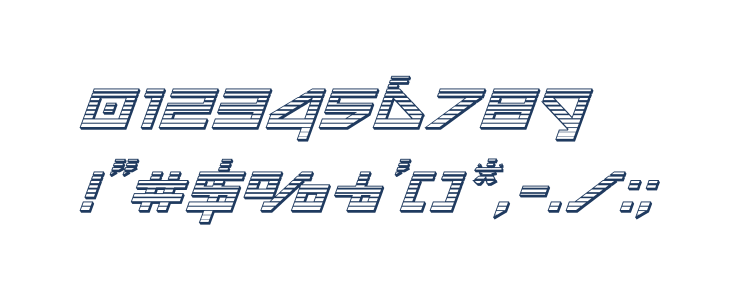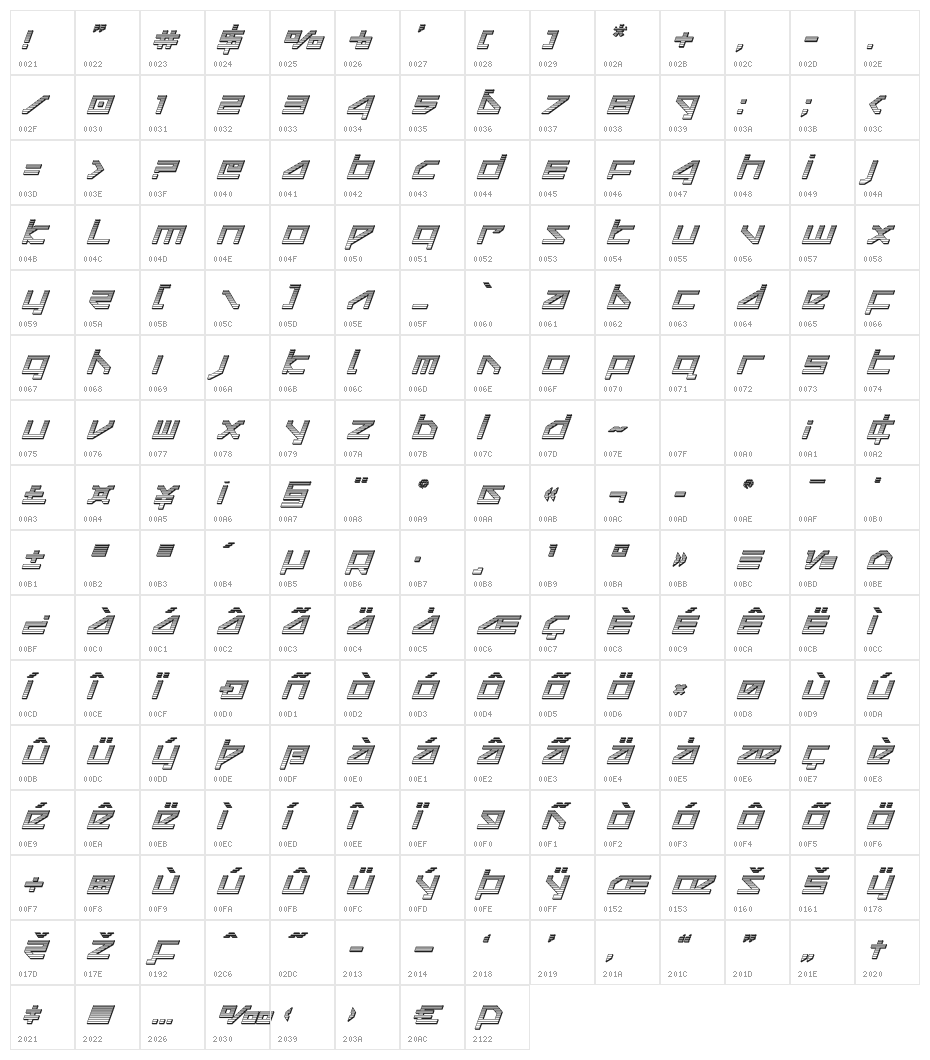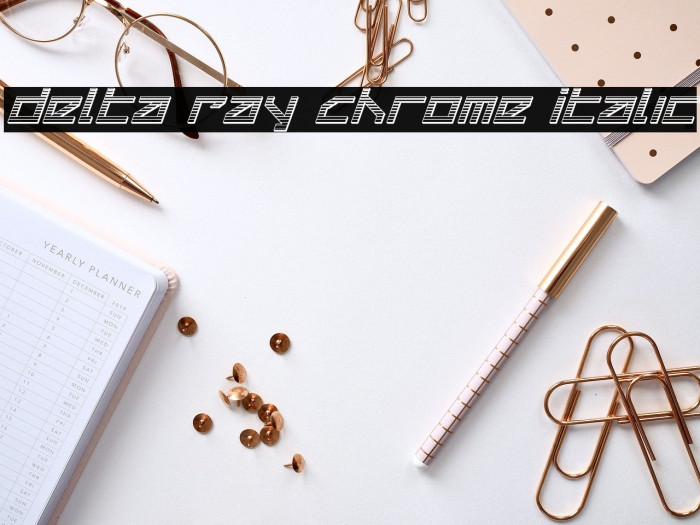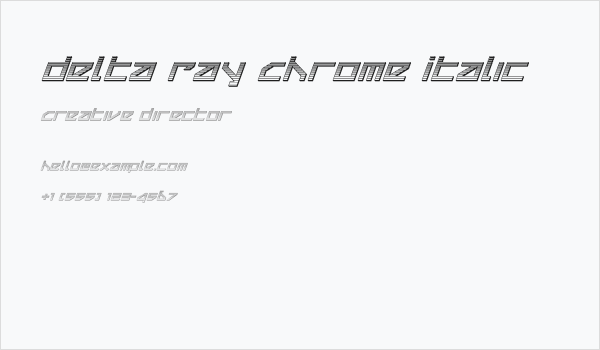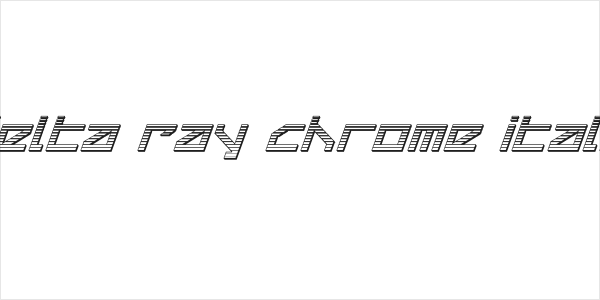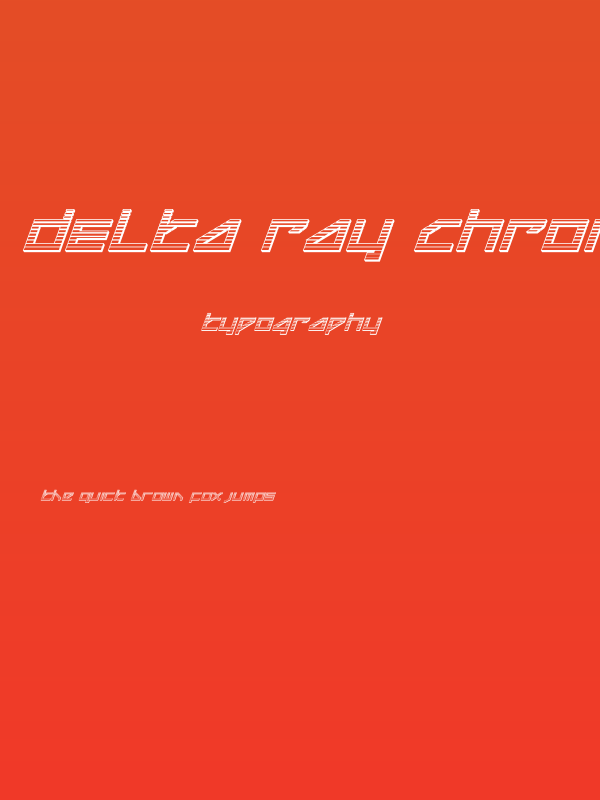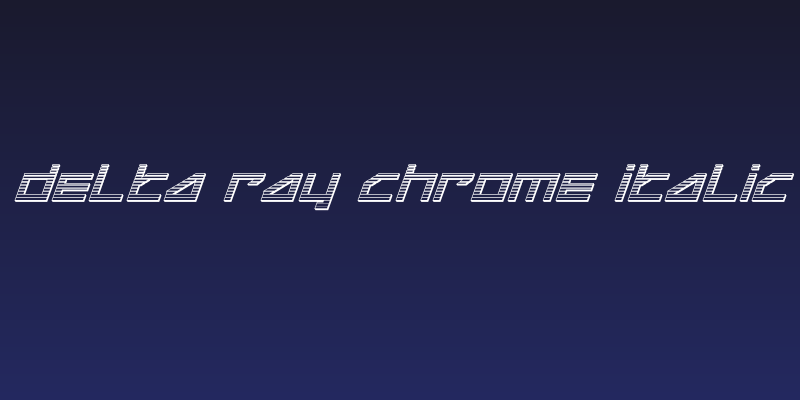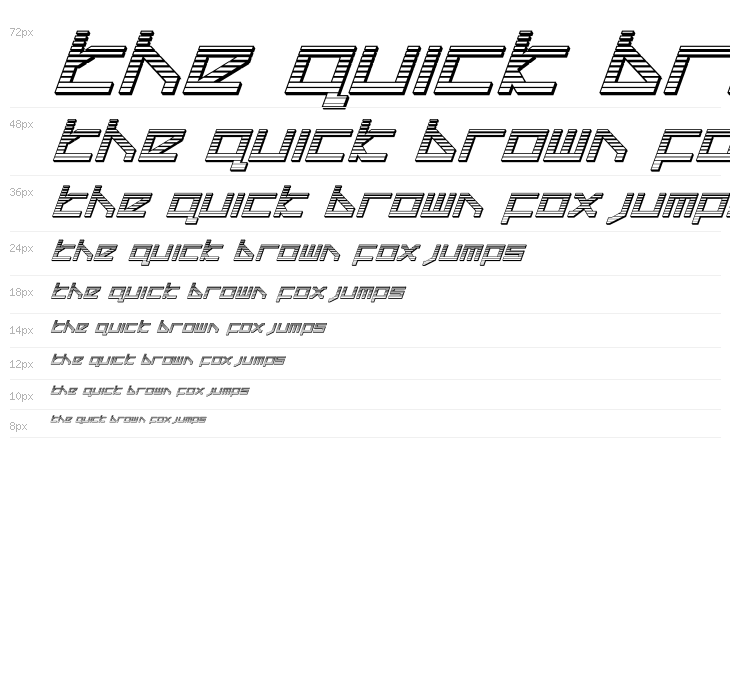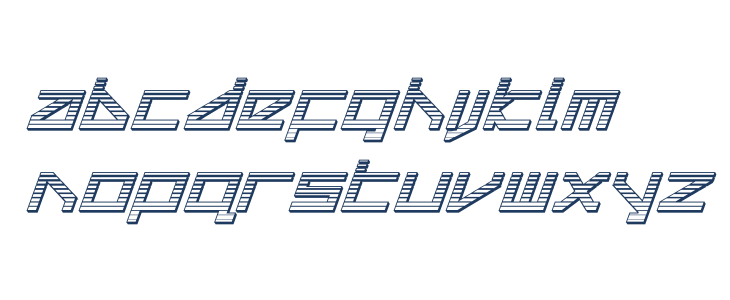
Delta Ray Chrome Italic Font
Delta Ray Chrome Italic Description
This font features a futuristic and dynamic design with a distinct three-dimensional effect. Each character is constructed with parallel lines that create a sense of depth and movement. The angular and geometric shapes give it a modern and tech-inspired look, making it stand out with its unique style. The italic slant adds to the sense of speed and motion, enhancing its visual appeal. The font is highly decorative, suitable for projects that require a bold and eye-catching typeface. Its structured yet playful appearance makes it versatile for various creative applications.
| Proposed Projects | Ideal for sci-fi themed designs, tech branding, video game titles, and futuristic posters. |